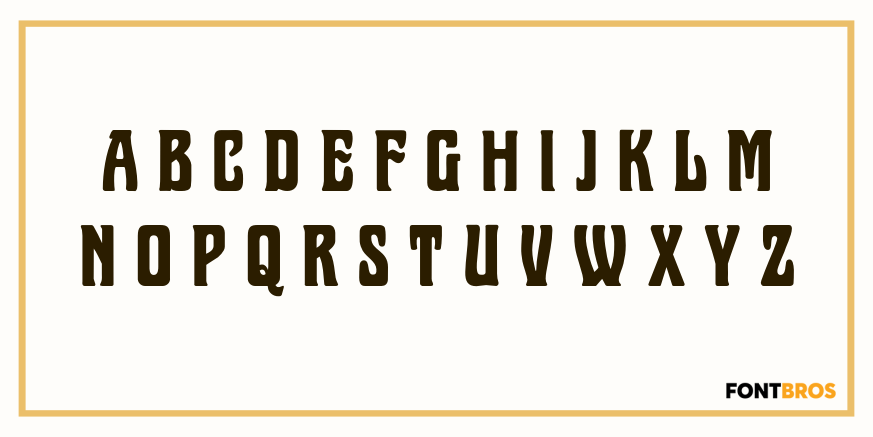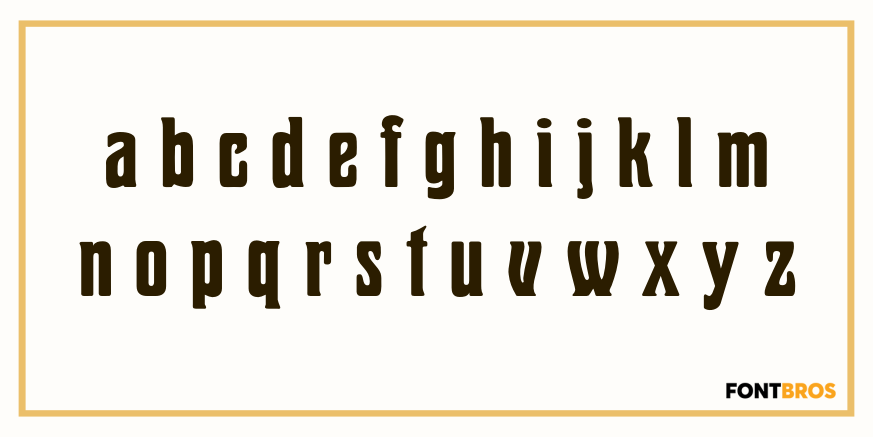
Marshall
Font Family by Solotype
Many similar fonts existed in Europe around 1900 and a bit before.
This one was made at the Wollmer Foundry in Germany and, except for adding the requisite modern monetary symbols and other such niceties, we preserved it quite faithfully.